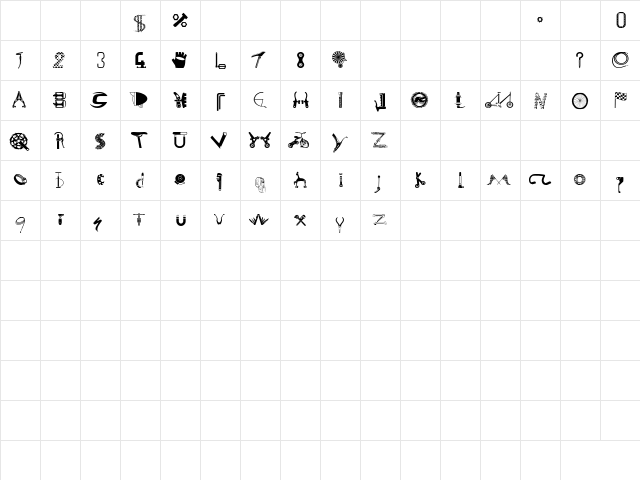
Monster Bike Regular
| Designer | Andrea Steffen |
Design Context for Monster Bike Typeface
Monster Bike is a composed and adaptable typeface that performs quietly and consistently across a wide range of design contexts.